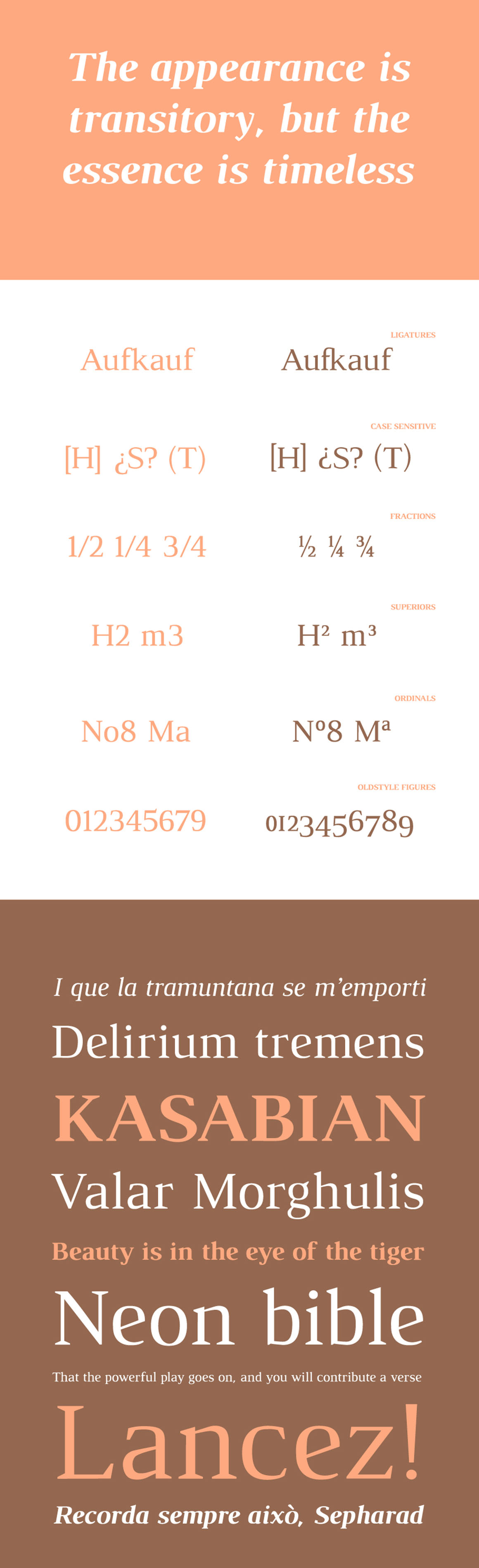
Luthier – Free Serif Font
This amazing serif custom font is from Adrià Gómez. With unique modern style is great for your new projects. Download and enjoy 😉